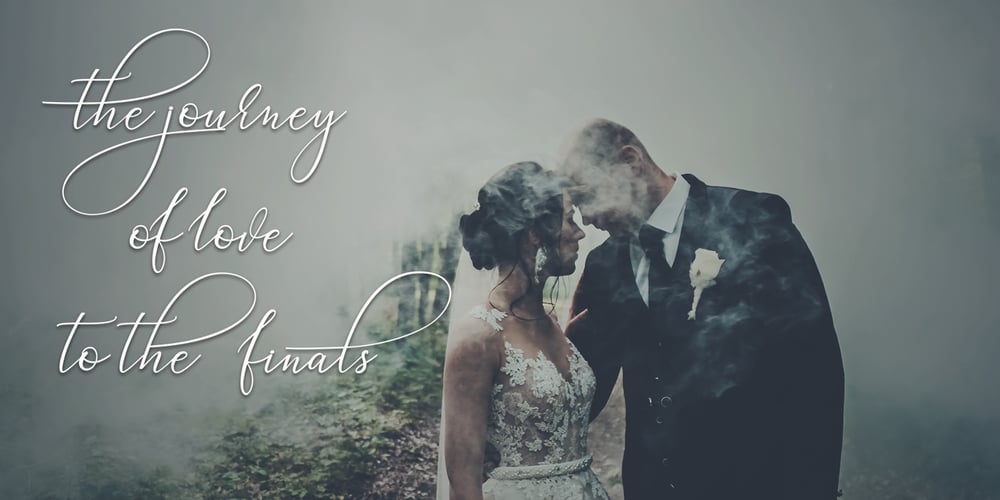
Heavenly Font Family was designed by Muhammad Rizal and published by MrLetters. Heavenly contains 2 styles and family package options. Heavenly Script is a modern calligraphic font with a very cool handwriting style, this font is perfect for your various design needs such as branding, wedding invitations, magazines, mugs, business cards, posters, and more. Heavenly Script is equipped with glyphs and alternative characters, allowing you to have many different character choices when starting your design. To use a variety of glyphs, you need a program that supports OpenType features like Adobe Photoshop Cs / Adobe Photoshop CC, Adobe Illustrator CS / Adobe Illustrator CC, Adobe Indesign and Corel Draw and many more programs that support OpenType. If you do not have a program that supports OpenType, you can access all alternative flying machines using Font Book (Mac) or Character Map (Windows) If you have any question, don’t hesitate to contact me by email hello.mrletters@gmail.com. Thanks and happy designing 🙂